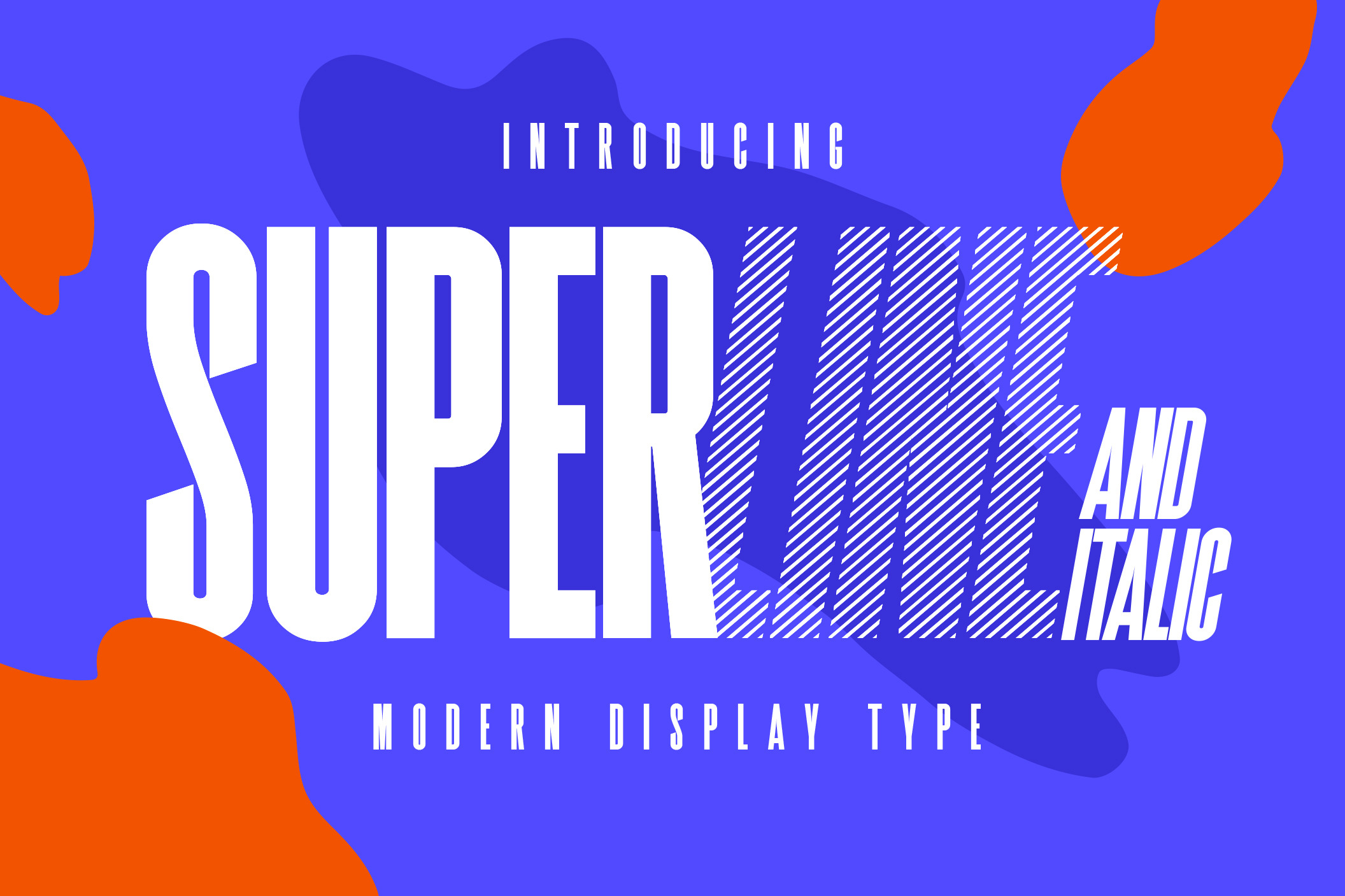
SuperLine Display Typeface
SuperLine Typeface. A striking modern display font in three styles.
SuperLine is a modern, all caps display font. Specifically developed for contemporary design styles and applications, it is supplied in three styles; regular, lined and outline.
Although it can be used at smaller sizes, it has been designed primarily for use at larger scales. Perfect for branding projects, striking posters and as a unique display font for web or app development, you can make a statement with SuperLine.
Extensions shape backgrounds are included. Designed to compliment the angles in the SuperLine typeface, these shapes are perfect for using as masks, image overlays or solid color background fills. They are supplied in Illustrator (ai and eps) vector format.
- Meticulously designed
- All uppercase display
- Comes in 3 styles, Regular, Lined and Outlined
- Allows for a vast range visual styles
- Vector Extensions included (In Illustrator vector format)